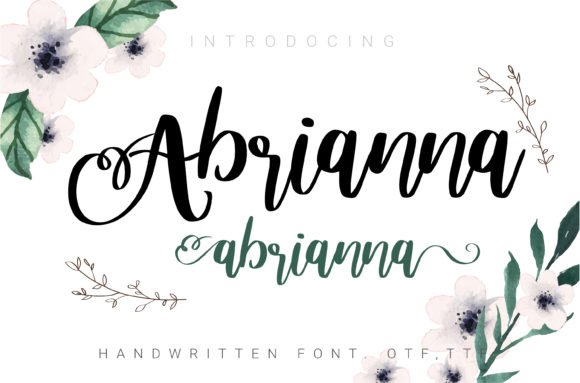
The Perfect Font for Your Next Design Masterpiece
Have you ever stared at a blank page, waiting for inspiration to strike? You know, that moment when everything falls into place and your creative vision comes alive? For designers, this feeling is a rush of excitement and a chance to bring a unique idea to life. And that’s exactly what Abrianna Font is all about – bringing elegance and charm to your designs.
Abrianna Font is a beautifully crafted, handwritten font that’s as versatile as it is stunning. With its smooth lines, gorgeous glyphs, and stunning alternates, this font is a treasure trove of creative possibilities. PUA encoded, Abrianna Font makes it easy to access all its glyphs and swashes, giving you the freedom to experiment and push the boundaries of your design.
Whether you’re a seasoned designer or just starting out, Abrianna Font is a valuable addition to your toolkit. Its unique style and features make it an ideal choice for creating spectacular designs that stand out from the crowd. So, get ready to fall in love with Abrianna Font and unleash your creativity!
Abrianna Font Key Features
- Font Family: Abrianna, Abrianna Italic, Abrianna Bold, Abrianna Bold Italic
- Unique Characteristics: Abrianna is a modern, elegant script font with a unique, flowing feel, making it perfect for invitations, wedding stationery, and other special occasions.
Abrianna Font Review
As a designer, I was excited to dive into the Abrianna font. Here’s my honest review.
The Abrianna font has a unique charm to it. I love how it combines modern and vintage elements to create a beautiful, elegant look. The font is perfect for titles and headings, as it adds a touch of sophistication to any design.
- The font’s x-height is well-proportioned, making it easy to read.
- The Abrianna font has a wide range of weights and styles, offering plenty of flexibility for different design applications.
- The font is highly legible, even at small sizes.
While the Abrianna font is a great addition to any design library, there are a few limitations to consider.
- The font may not be the best choice for body text, as it can be a bit too ornate for large blocks of text.
- The font’s kerning can be a bit off in certain combinations, which can affect readability.
Overall, I’m impressed with the Abrianna font. While it may have some limitations, its unique charm and elegant design make it a great choice for titles, headings, and other design elements where a touch of sophistication is needed.
Getting the Most Out of Abrianna Font
To get the most out of Abrianna Font, use it in conjunction with other elegant fonts and design elements, such as cursive scripts and watercolor effects. Experiment with different font sizes, colors, and styles to create a unique and eye-catching design.
Abrianna Font is commonly used for:
- Typography-heavy designs, such as posters and brochures
- Presentation and document design